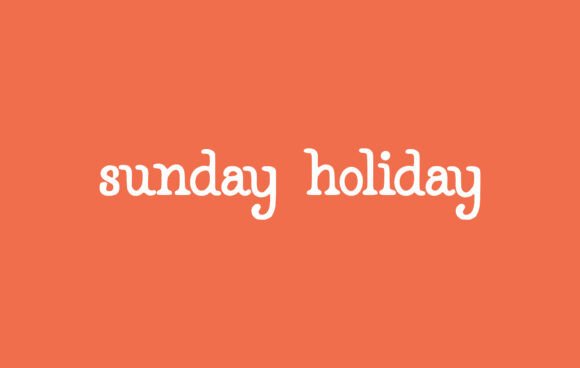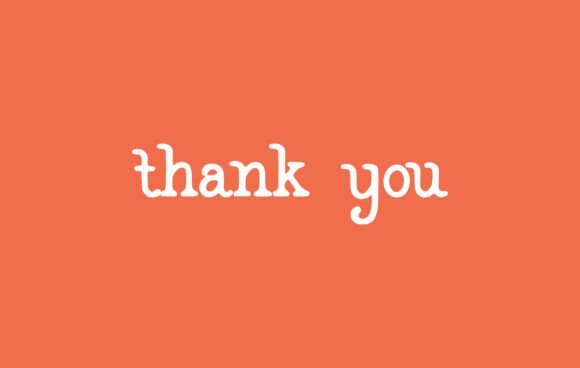
Discover the Charm of Governors Plum Font: Elevate Your Designs with a Romantic Touch
Are you on the hunt for a font that adds a dash of romance and sophistication to your designs? Look no further than the Governors Plum font, an authentic handwritten font that is sure to capture your heart. With its unique blend of elegance and playfulness, this font is expertly designed to take your creative ideas to new heights. In this article, we’ll dive into the world of Governors Plum font, exploring its features, uses, and benefits for designers and crafters.
What Makes Governors Plum Font Stand Out?
Governors Plum font is a true gem in the world of typography. Its authentic handwritten style gives it a personal and intimate feel, making it perfect for designs that require a touch of warmth and personality. The font’s romantic touch is evident in its flowing curves and delicate lines, which evoke a sense of nostalgia and whimsy.
One of the standout features of Governors Plum font is its exceptional legibility. Whether you’re using it as a title or body text, this font is easy to read and understand, making it perfect for a wide range of design applications. From magazine headlines to social media posts, branding materials to wedding invitations, Governors Plum font is the perfect choice for designers and crafters looking to add a touch of elegance to their work.
Uses for Governors Plum Font
So, what can you use Governors Plum font for? The possibilities are endless! Here are just a few ideas to get you started:
- Magazine Headlines: Add a touch of sophistication to your magazine headlines with Governors Plum font. Its elegant style is perfect for fashion, lifestyle, and entertainment publications.
- Social Media: Elevate your social media posts with Governors Plum font. Use it to create eye-catching graphics, quotes, and promotional materials that will engage your followers.
- Branding: Establish your brand’s identity with Governors Plum font. Its unique style will help you stand out from the competition and create a lasting impression on your customers.
- Wedding Invitations: Make your wedding invitations truly special with Governors Plum font. Its romantic touch will set the tone for a beautiful and memorable wedding celebration.
- Cards and Stationery: Add a personal touch to your cards and stationery with Governors Plum font. Perfect for birthdays, anniversaries, and other special occasions.
So, why should designers and crafters choose Governors Plum font? Here are just a few benefits:
- Ease of Use: Governors Plum font is easy to use and integrate into your designs. Its clear and legible style makes it perfect for a wide range of applications.
- Versatility: This font is versatile and can be used for both digital and print designs. Whether you’re creating a social media post or a magazine headline, Governors Plum font will look great.
- Unique Style: Governors Plum font has a unique style that will help you stand out from the competition. Its romantic touch and elegant curves make it perfect for designers and crafters looking to add a touch of sophistication to their work.
In conclusion, Governors Plum font is a true gem in the world of typography. Its authentic handwritten style, romantic touch, and exceptional legibility make it perfect for a wide range of design applications. Whether you’re a designer or crafter, this font is sure to elevate your creative ideas to new heights. So why wait? Discover the charm of Governors Plum font today and take your designs to the next level!